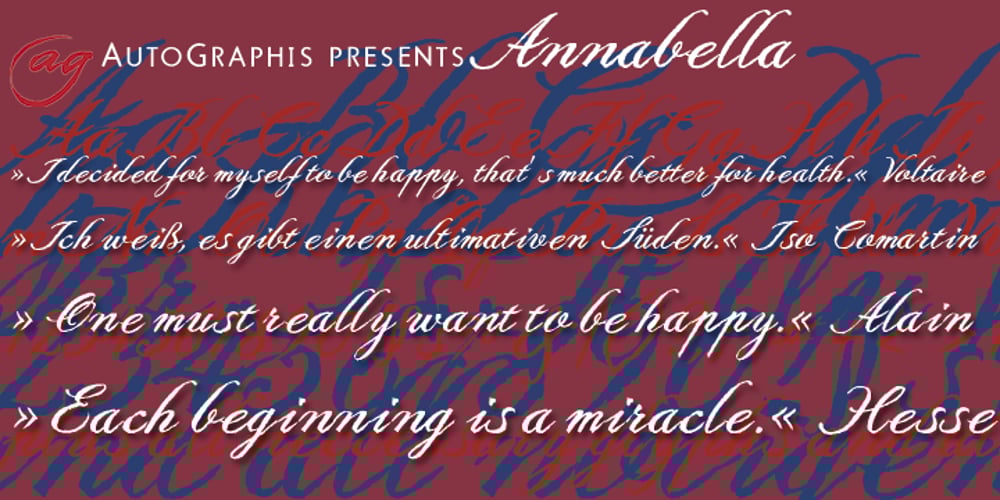
Annabella Font Family was designed by Gert Wiescher and published by Autographis. Annabella contains 1 styles and family package options. Annabella is a joining classical English script, written with a Japanese brush on rough watercolor paper, scanned and finished by hand on screen, taking care to keep the “rough” touch. It can be used together with Brigitta.